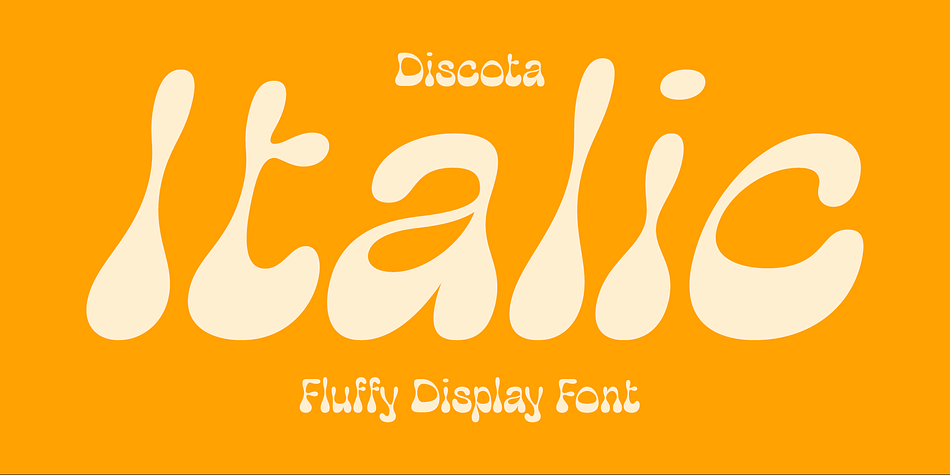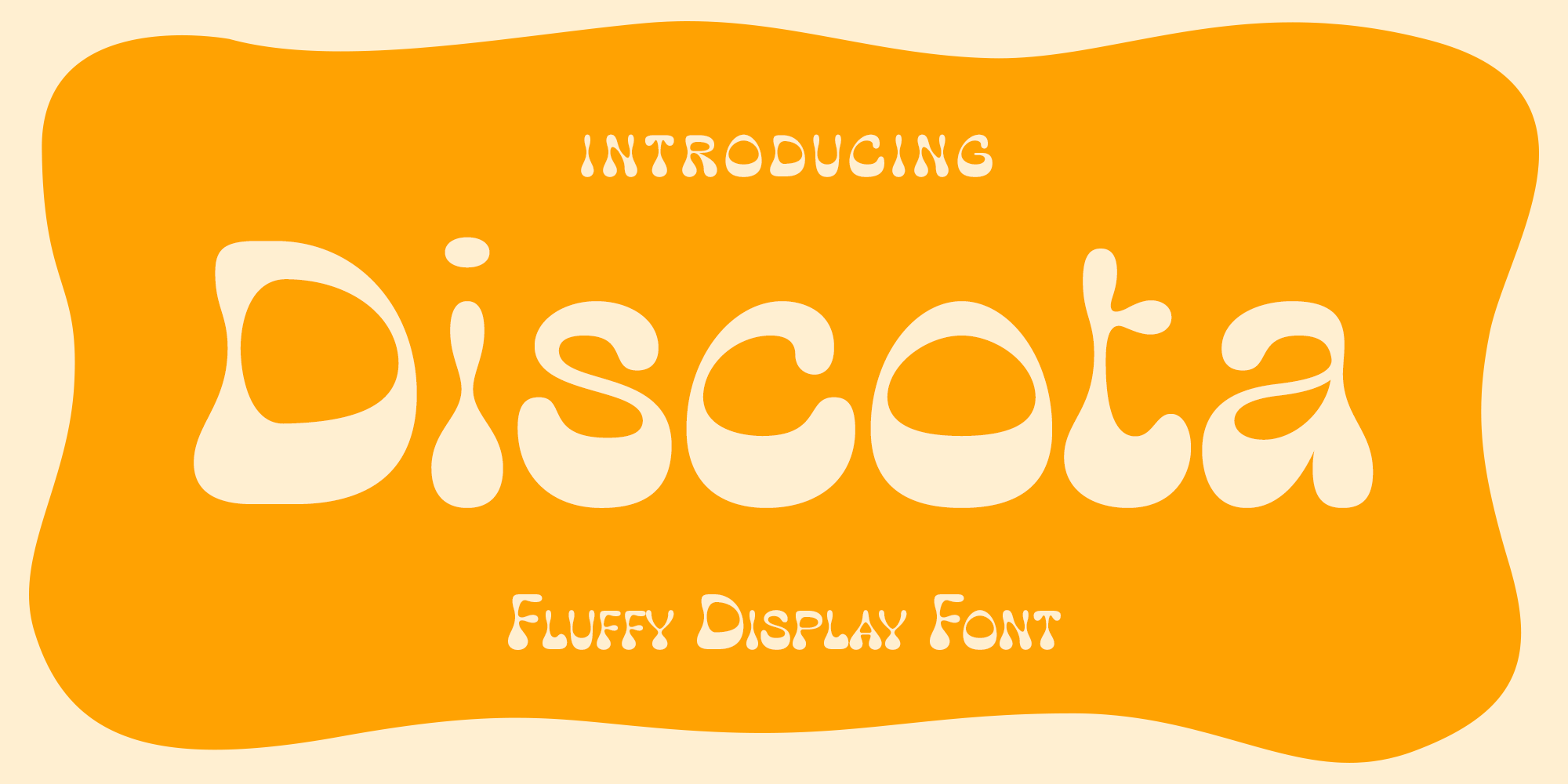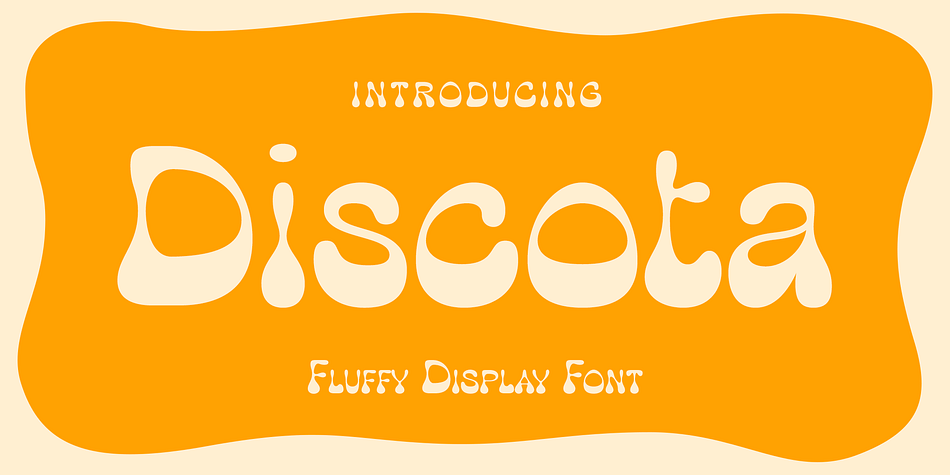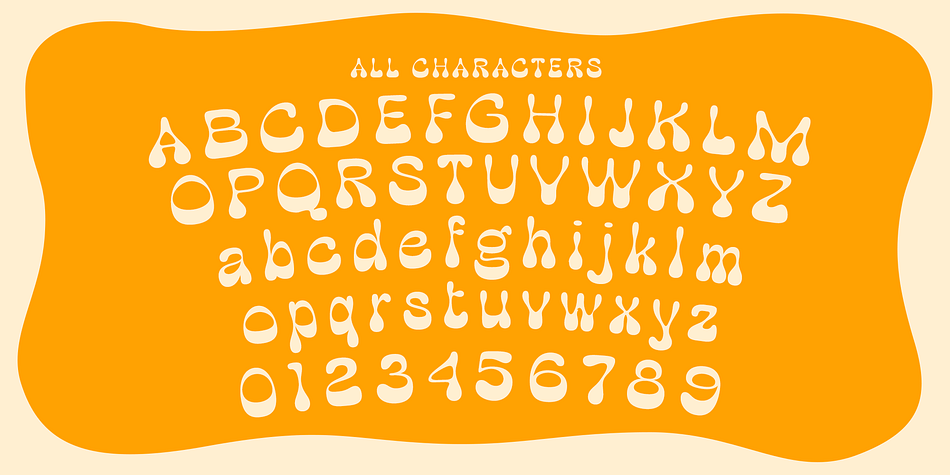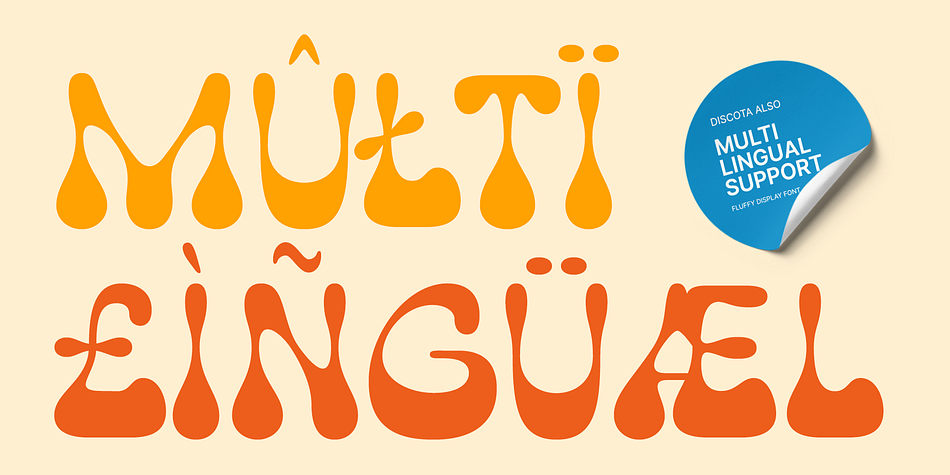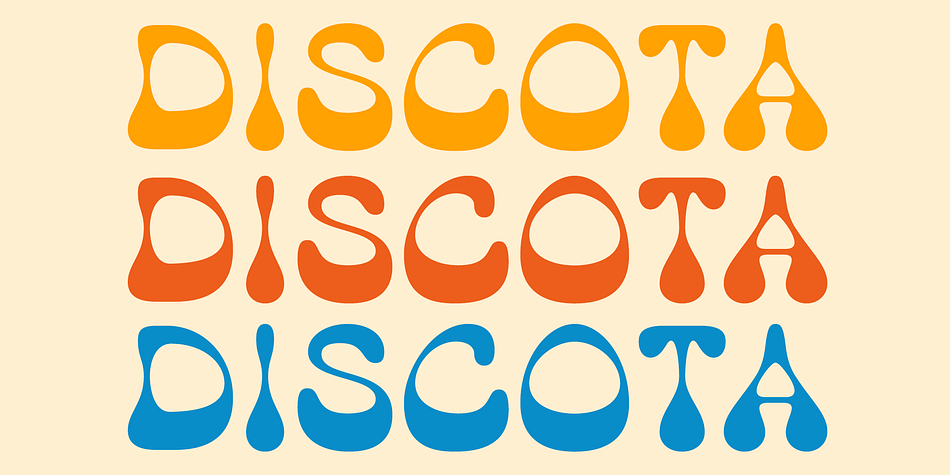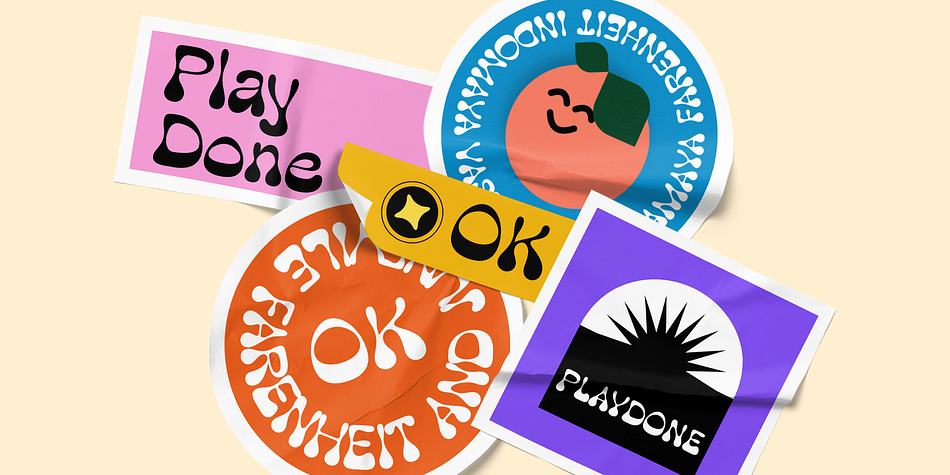
Discota
Discota is a retro font family. This typeface has two styles and was published by Craft Supply Co.
Discota – Fluffy Display Font embodies the retro coolness of the 80s and 90s, exuding a playful and groovy aesthetic reminiscent of those iconic decades. Its rounded, boogie-inspired design with soft edges and friendly appearance makes it an ideal choice for projects aiming to evoke nostalgia or a carefree, energetic atmosphere.
Discota effortlessly captures the spirit of the past, making it the perfect choice to infuse your creative work with a touch of nostalgia and a whole lot of fun. Choose Discota to bring the funky and stylish aesthetics of the 80s and 90s to your designs, creating a memorable and captivating visual experience.
This typeface enhances a wide range of design projects, including greeting cards, packaging, brand identity, posters, and more, adding eye-catching and trendy appeal.